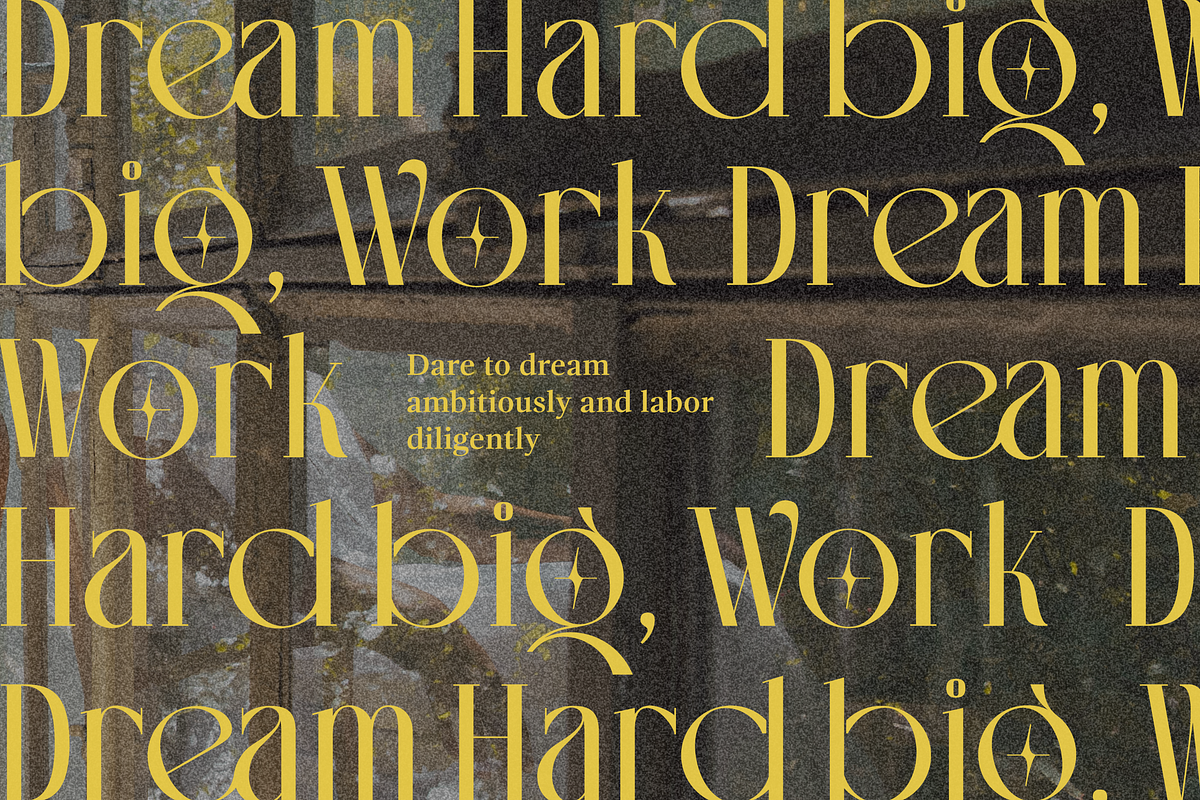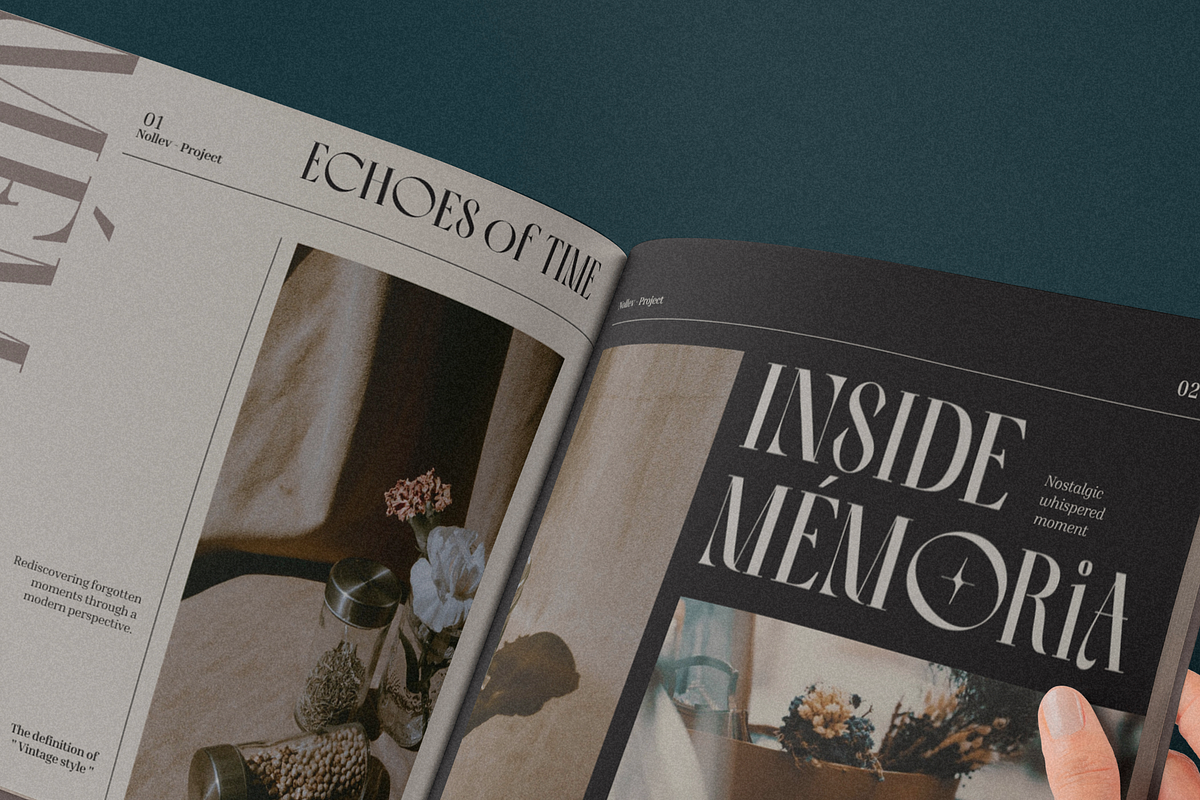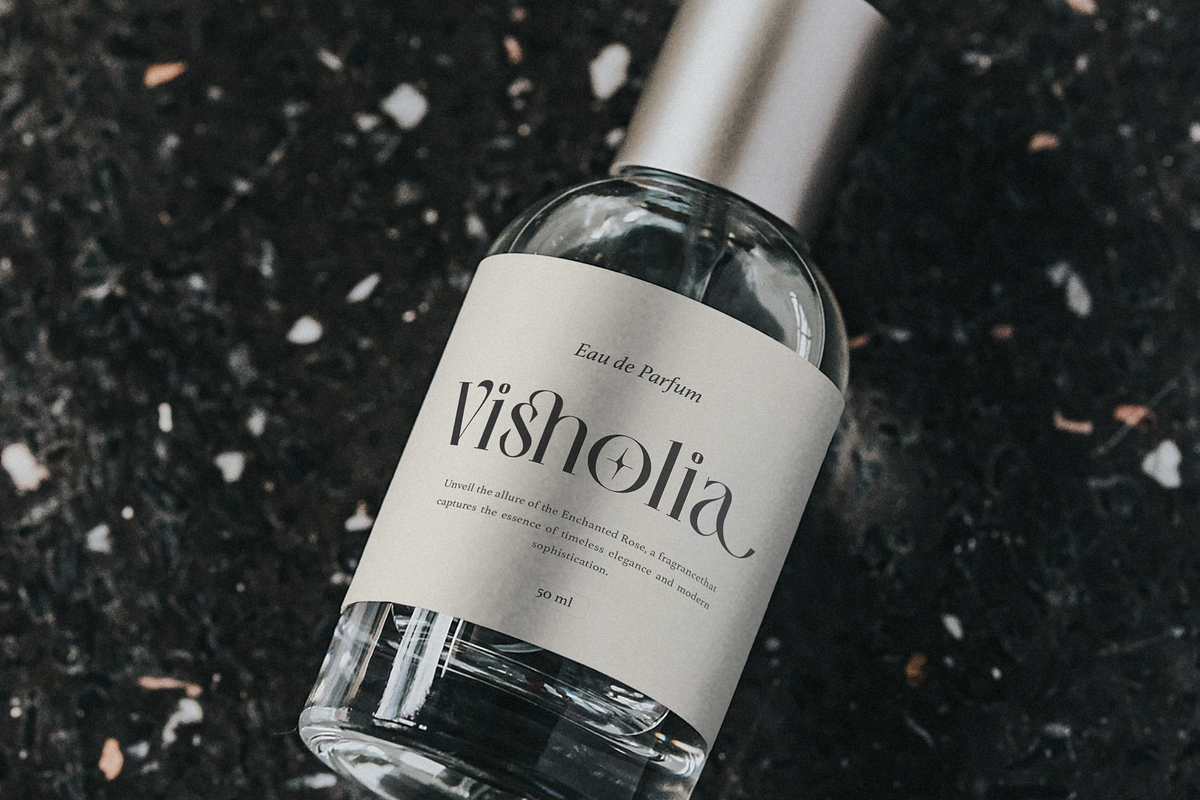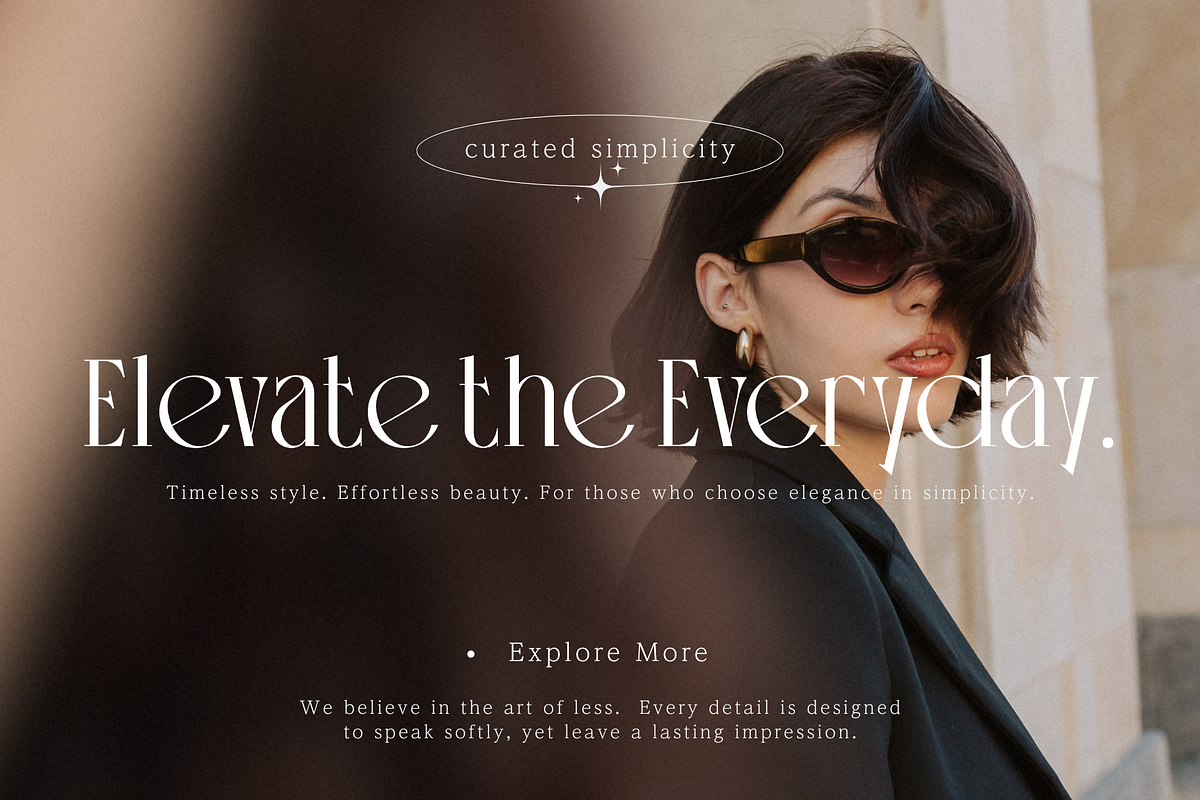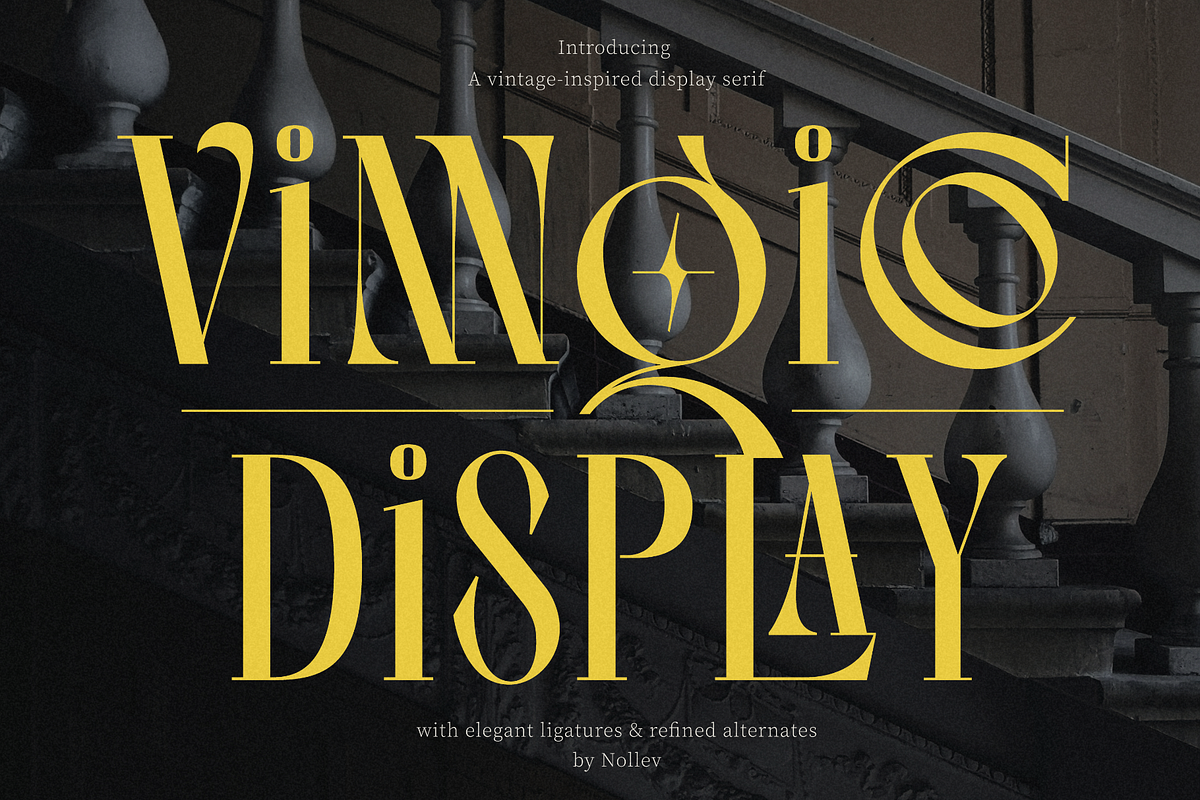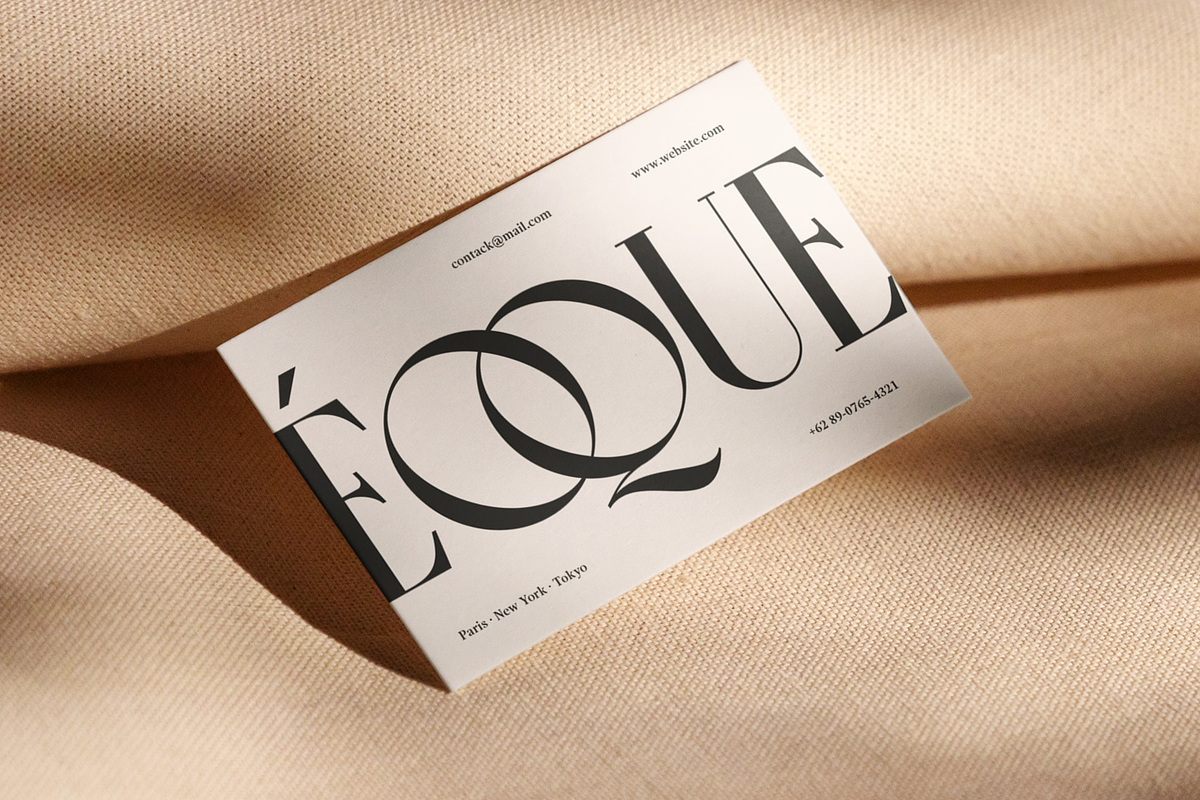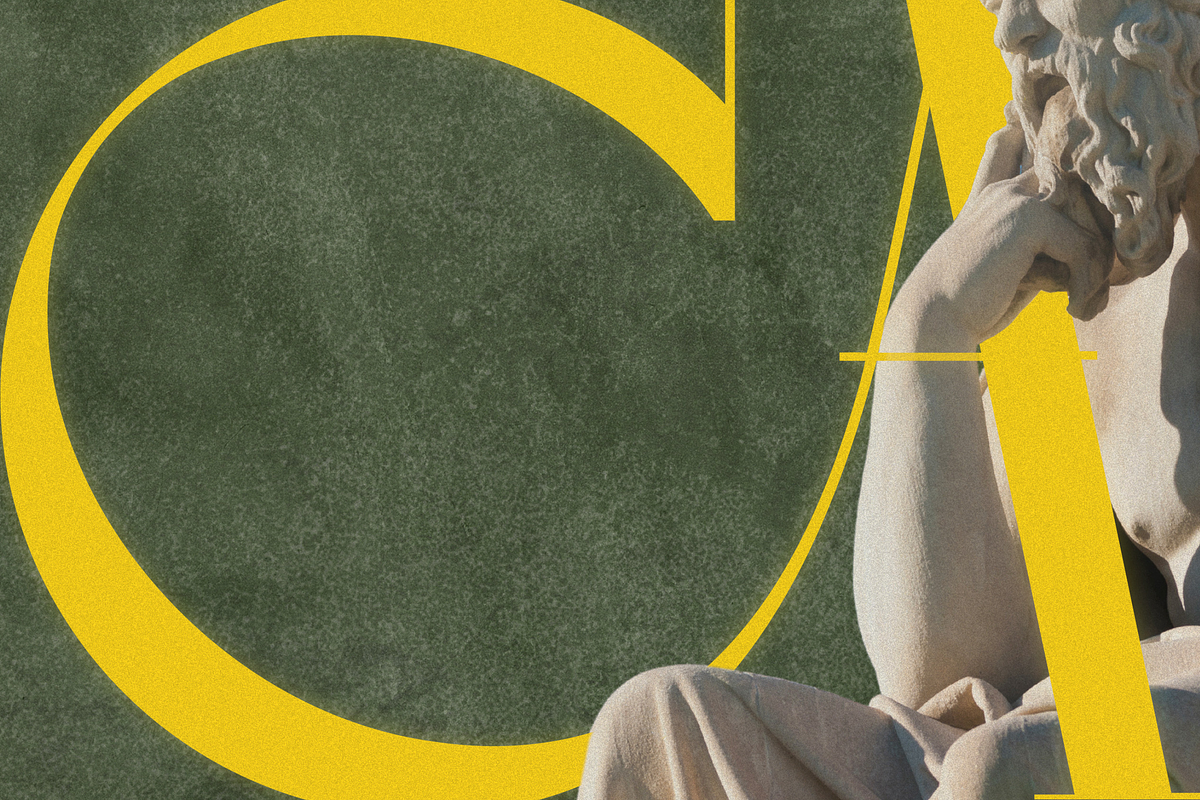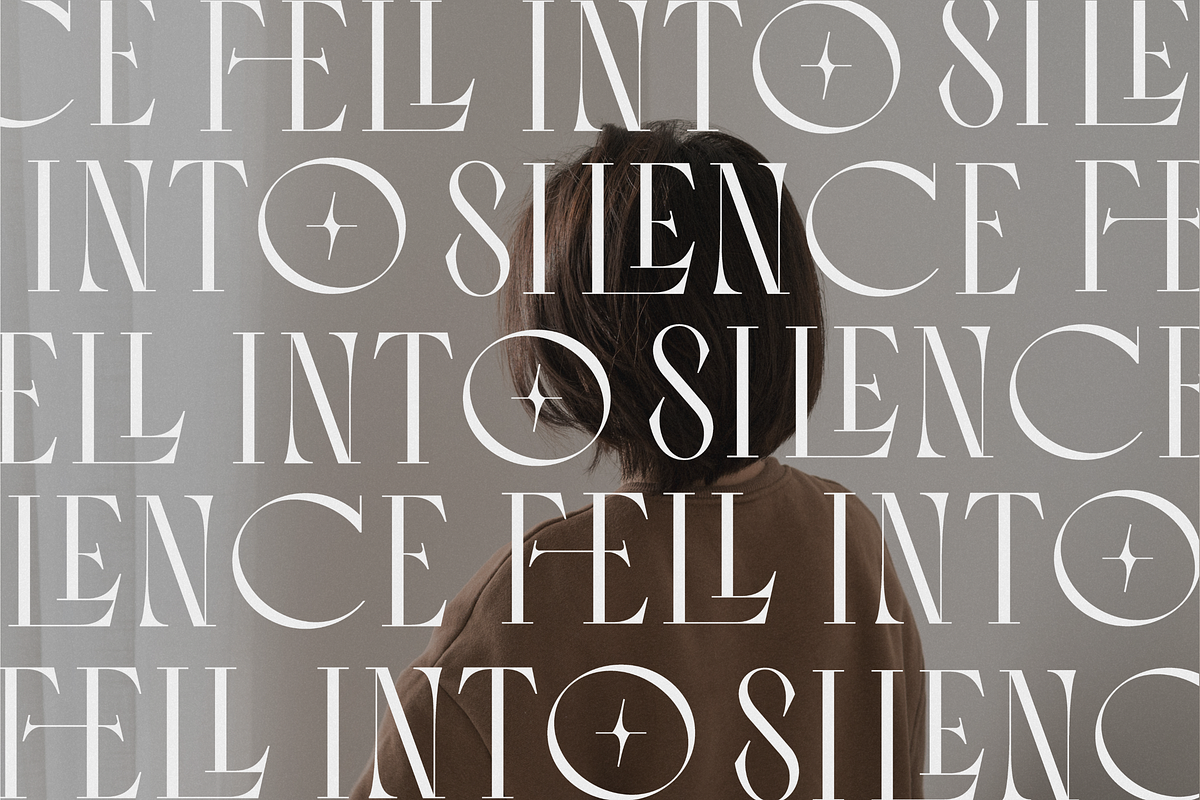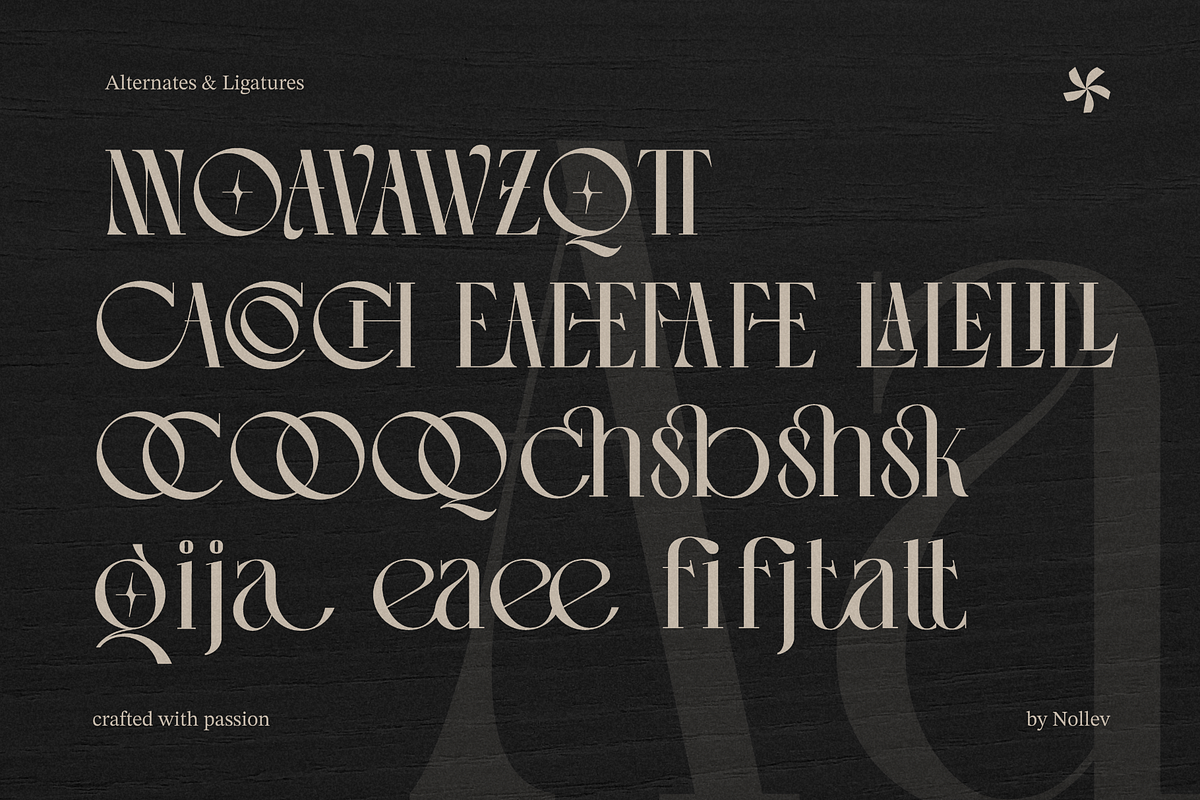
Vingico – Elegant Serif Display Font
Vingico is a high-contrast serif display font that combines clean structure with modern elegance. With glamorous curves and sharp details, it’s perfect for designers seeking refined typography for logos, headlines, packaging, and upscale branding.
✨ 3 Display Styles – Crafted for impactful, versatile design.
✨ Elegant Ligatures & Alternates – Add character and distinction.
✨ Multilingual Support – Works seamlessly across languages.
Display Serif Typeface – Ideal for titles, branding, and editorial use.
Modern & Classy Look – Balanced for sophistication and clarity.
High-Quality Detailing – Designed for strong visual identity.
✨ Elevate your typography with Vinngico – The Elegant Serif for Modern Design. ✨